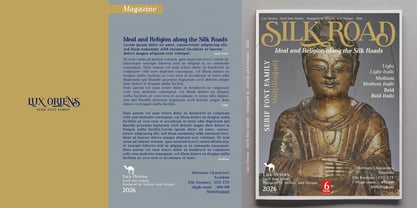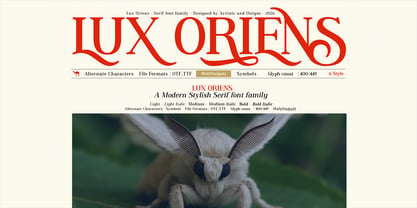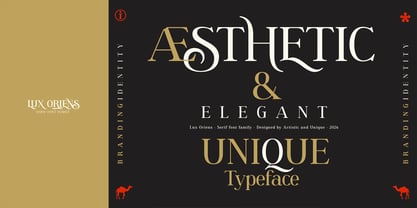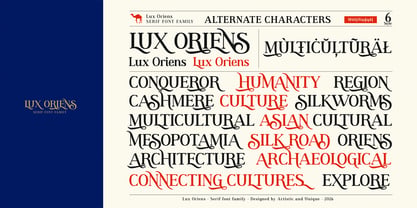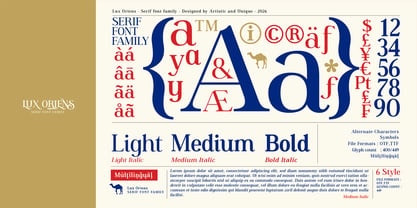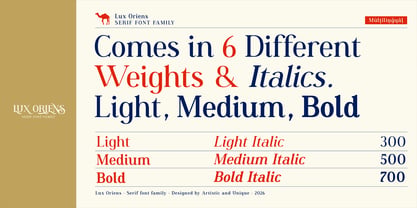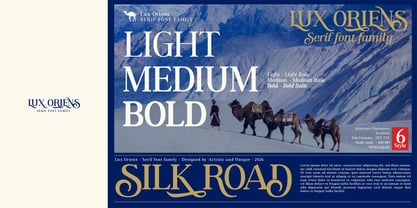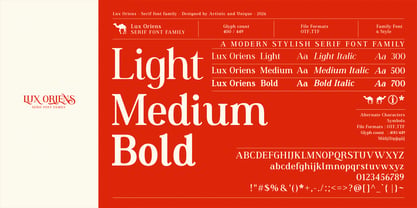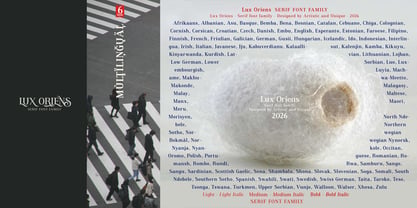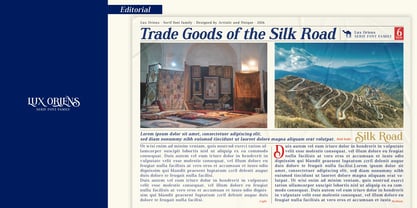
Lux Oriens
by Artisticandunique
The Lux Oriens Font Family was designed by Osman Taner Kucukgenc and published by Artisticandunique. Lux Oriens contains 6 styles and family package options. More about this family
Lux Oriens - Serif Font Family - 6 Styles - Multilingual Support. Inspired by the serif font styles of the 1700s and 1800s, Lux Oriens is designed to allow for more impressive and artistic uses with its stylized alternative characters. The timeless nature of the serif font continues to be effective in today's modern design content. This elegant font is designed to be more effective in enriching modern design projects with its subtle yet impactful nuances. Lux Oriens' elegant curves add a sophisticated look while providing flexibility with varying levels of contrast; perfect for both large headline phrases and refined body text. Features: - Multilingual Support – Communicate with global audiences. - 6 Styles – A wide range suitable for different projects. - Style Alternatives – Versatile aesthetic options. - Rich Glyph Options – 449 glyphs for creative freedom. - Perfect for Publication Design – Enhances print and digital media. - Specialized in Web and Logo Design – Provides a striking brand presence. - Alternative Characters and Symbols – Expands creative possibilities. Ideal for branding, luxury packaging, and editorial design, Lux Oriens offers stylish and decorative possibilities. Its versatile and elegant structure allows it to seamlessly adapt to a wide variety of projects and create a powerful impact. Choose Lux Oriens and discover how its aesthetic elegance elevates your creative work. Enjoy.
Designers: Osman Taner Kucukgenc
Foundry: Artisticandunique
Technologies can change and evolve. However, no matter how much the production environments change, good typography created with the principles of creative and correct use of fonts will not change. Osman Taner Küçükgenç is an Istanbul based designer with a background in graphic design and advertising. He created his personal brand, Artistic and Unique, in order to create quality digital content. He spent years designing typography and typefaces, which are an important part of his academic education and therefore his profession. Fonts are an important tool in all visual communication. While designing the typeface to be unique, having a story behind it gives it character. It is intended to design this tool in the best and most functional way for the user.